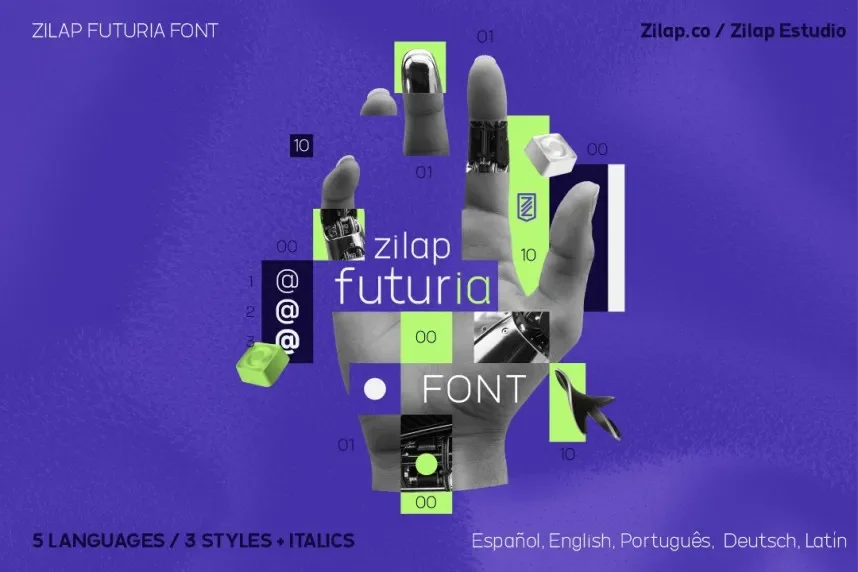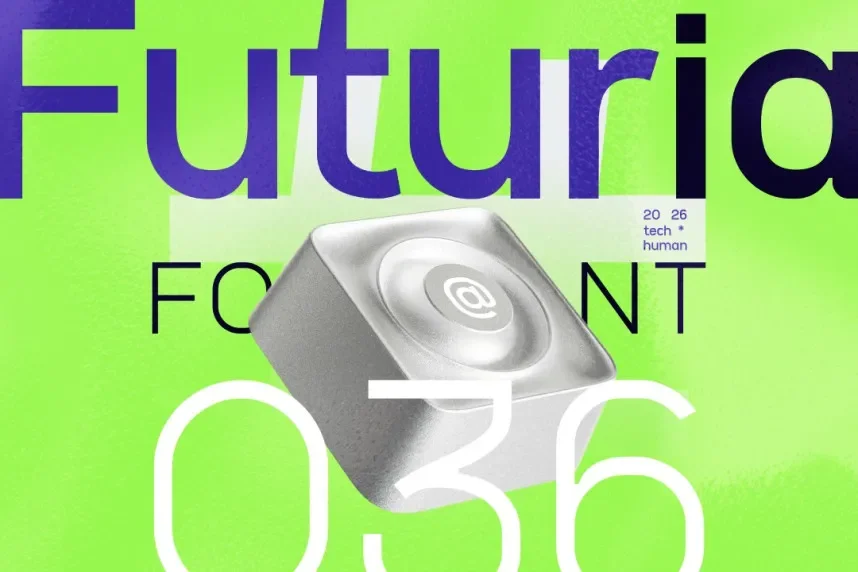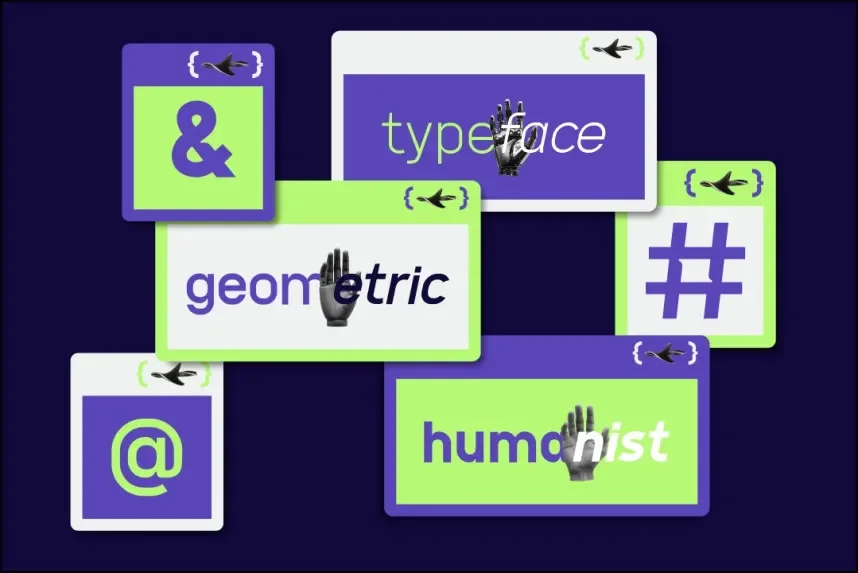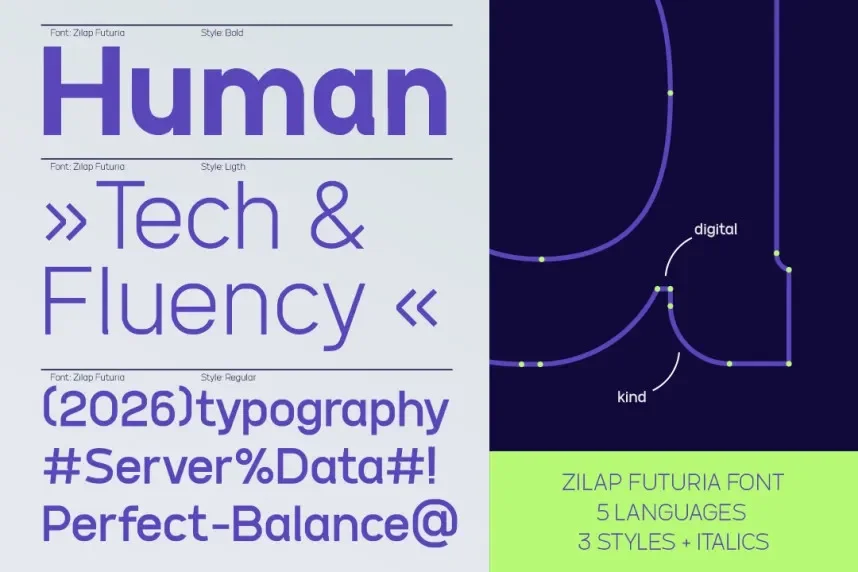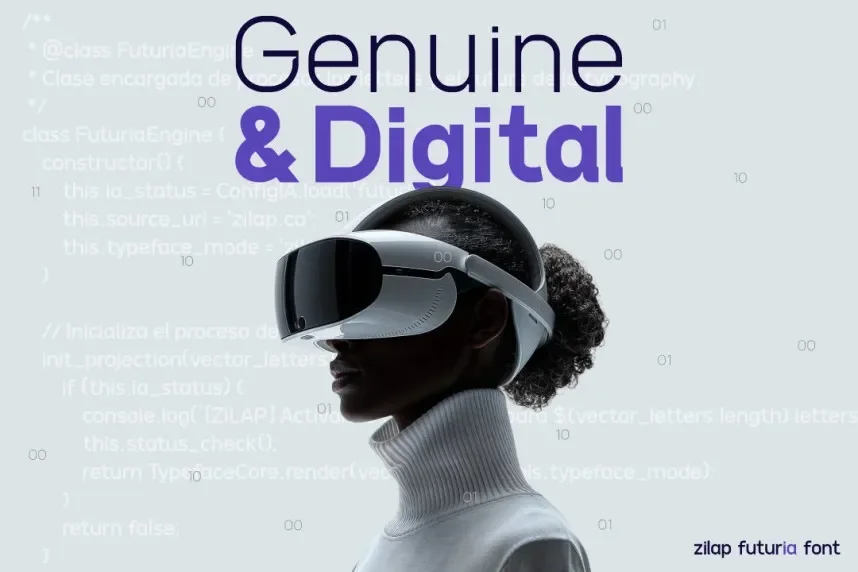
Zilap Futuria Font is a futuristic sans-serif typeface designed to enhance readability while giving a modern, technological feel to branding, UI design, and digital projects. Its consistent letterforms address issues with spacing and clarity in digital interfaces.
This font family features geometric shapes, uniform stroke widths, and minimalistic terminals. Its clean curves and open counters improve legibility in headings, logos, and web design. Multiple weights and stylistic alternates allow designers to create a cohesive typographic hierarchy.